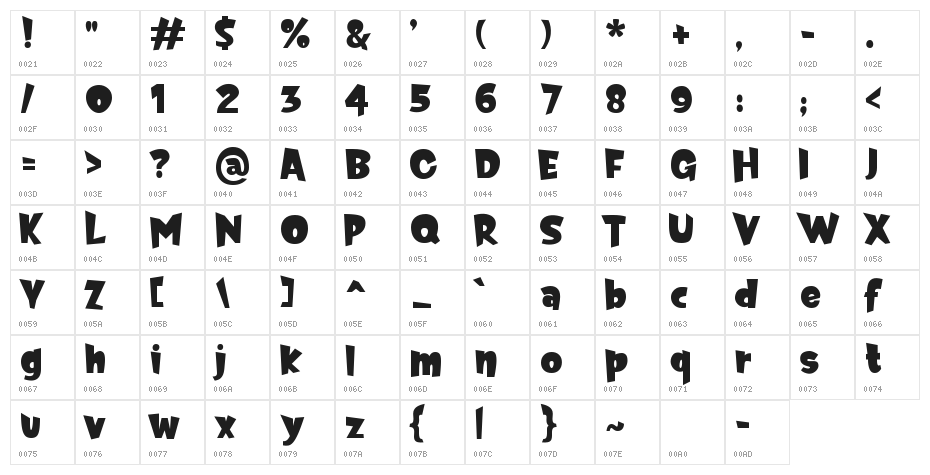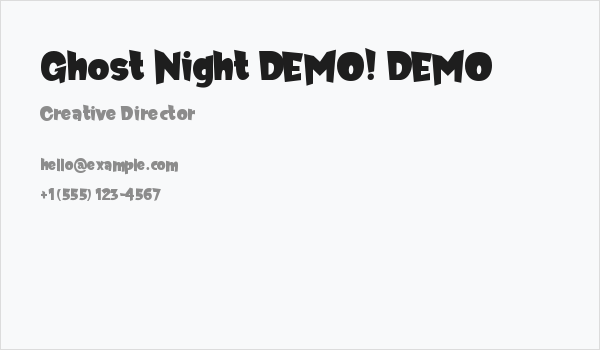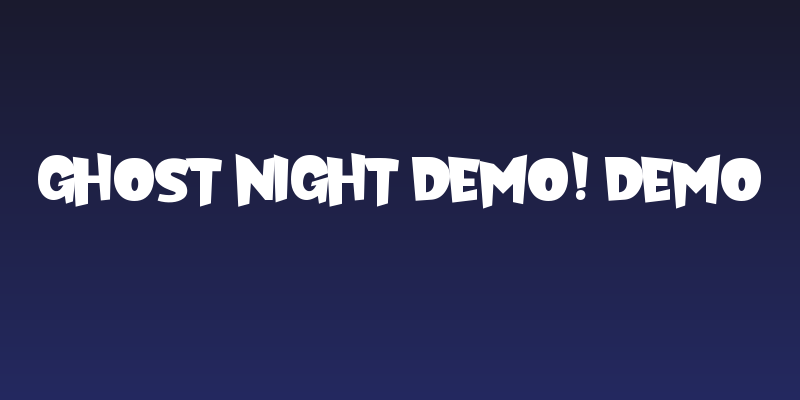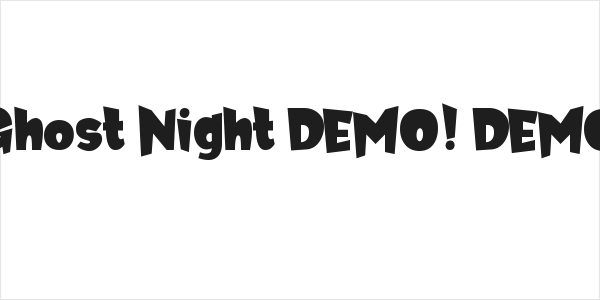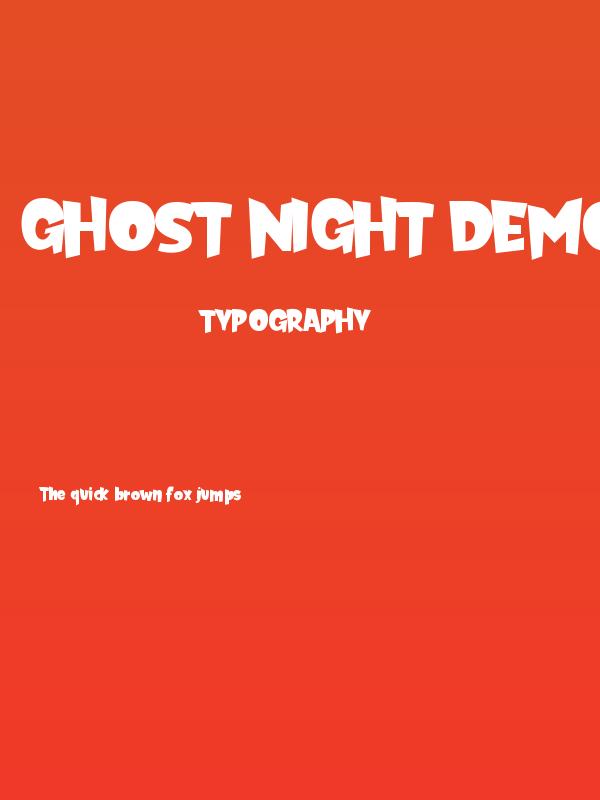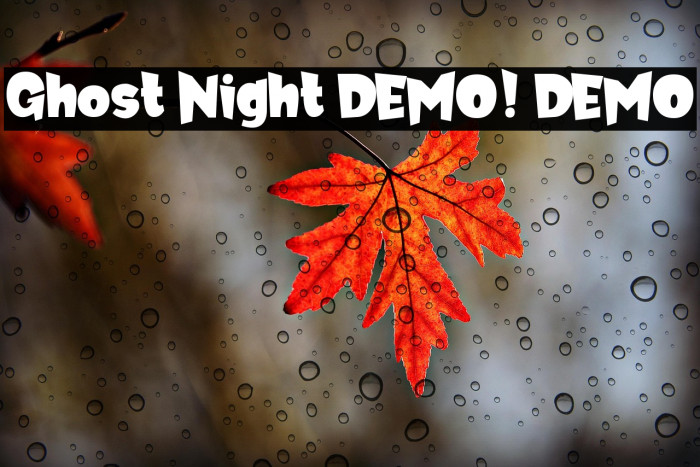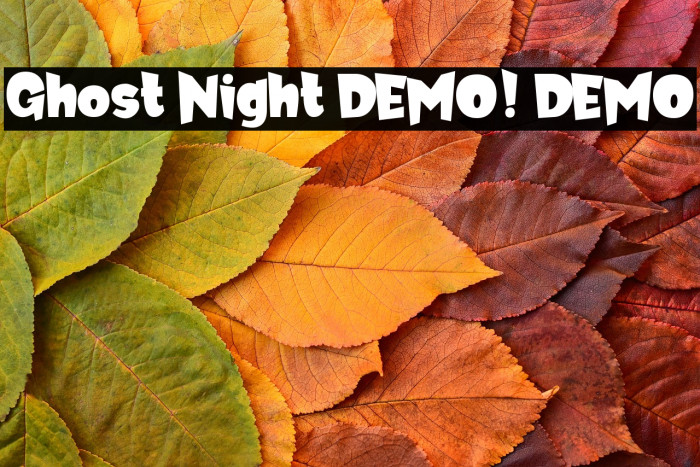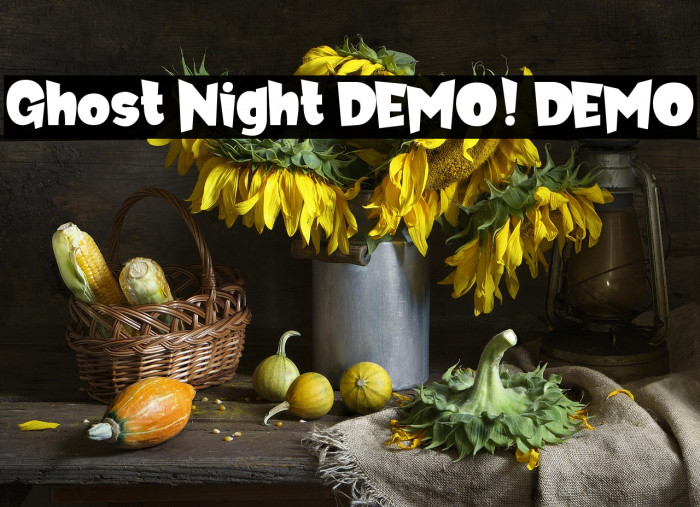
Ghost Night DEMO! DEMO Font
Ghost Night DEMO! DEMO Description
This font features a playful and bold design with exaggerated curves and angles, giving it a whimsical and energetic appearance. The uppercase and lowercase letters are uniquely stylized, with some characters having a slightly irregular shape that adds to the font's quirky charm. The numbers and special characters maintain the same lively style, making the font suitable for creative and informal applications. Its bold weight and wide character spacing enhance readability while maintaining a fun and engaging look.
| Proposed Projects | Ideal for children's books, party invitations, comic strips, and playful branding materials. |